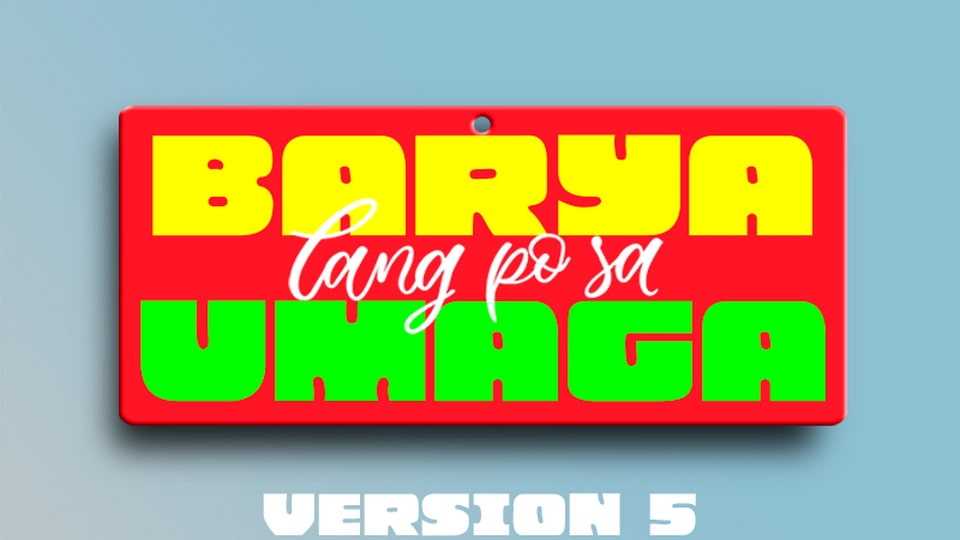
Download Barya Lang Po Sa Umaga font, a typeface inspired by the colorful and expressive signboards of the Philippine jeepneys, the iconic public transportation vehicles that are known as the “King of the Philippine roads”.